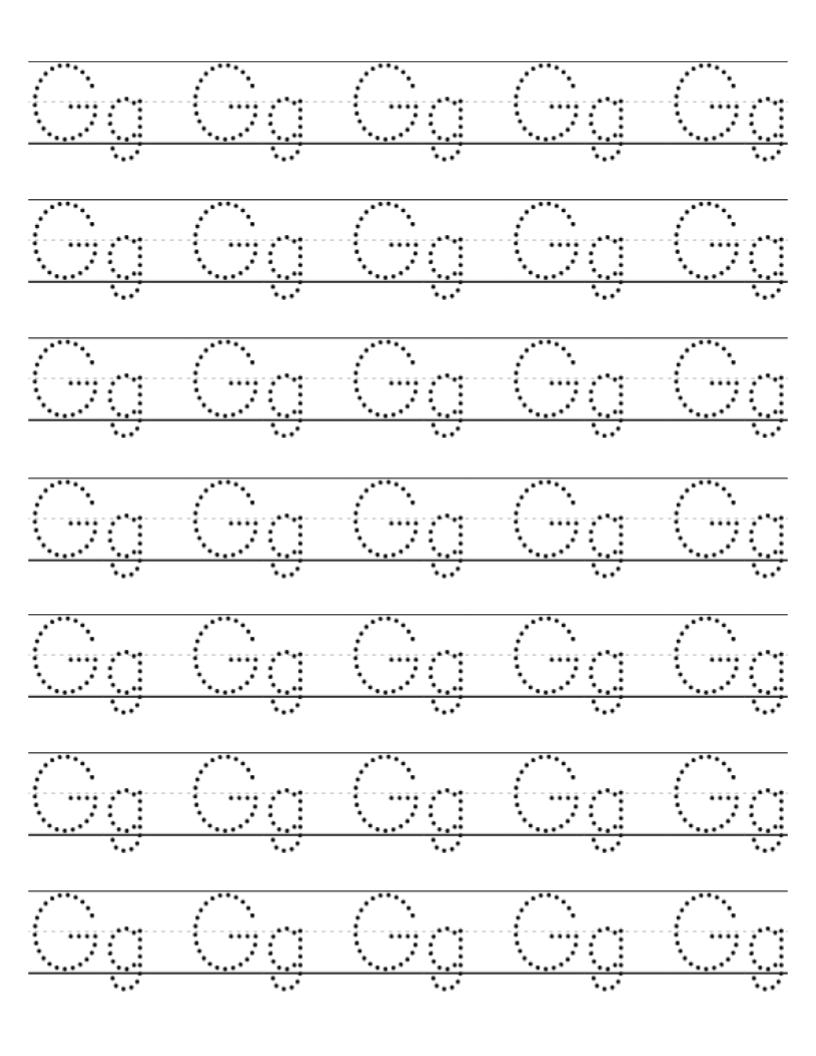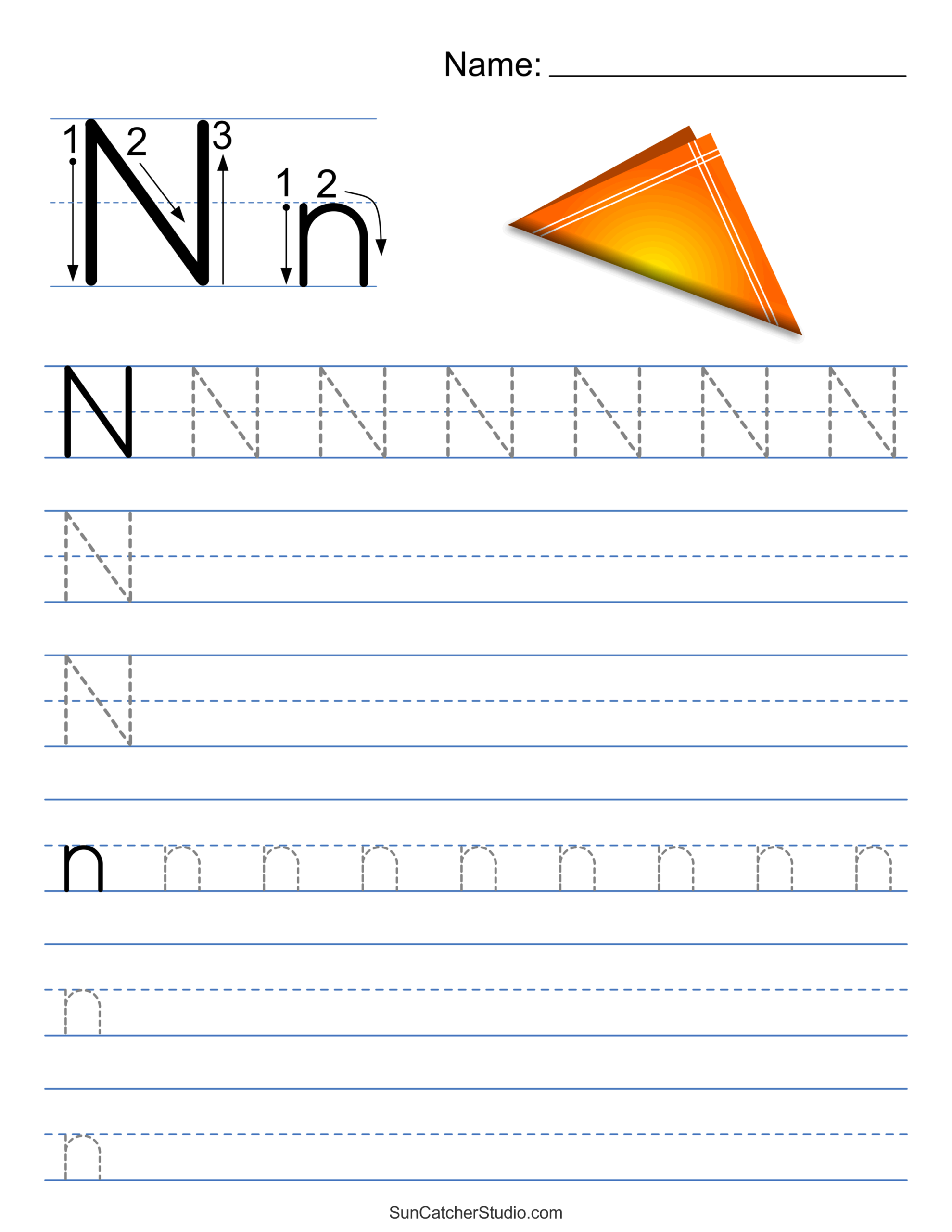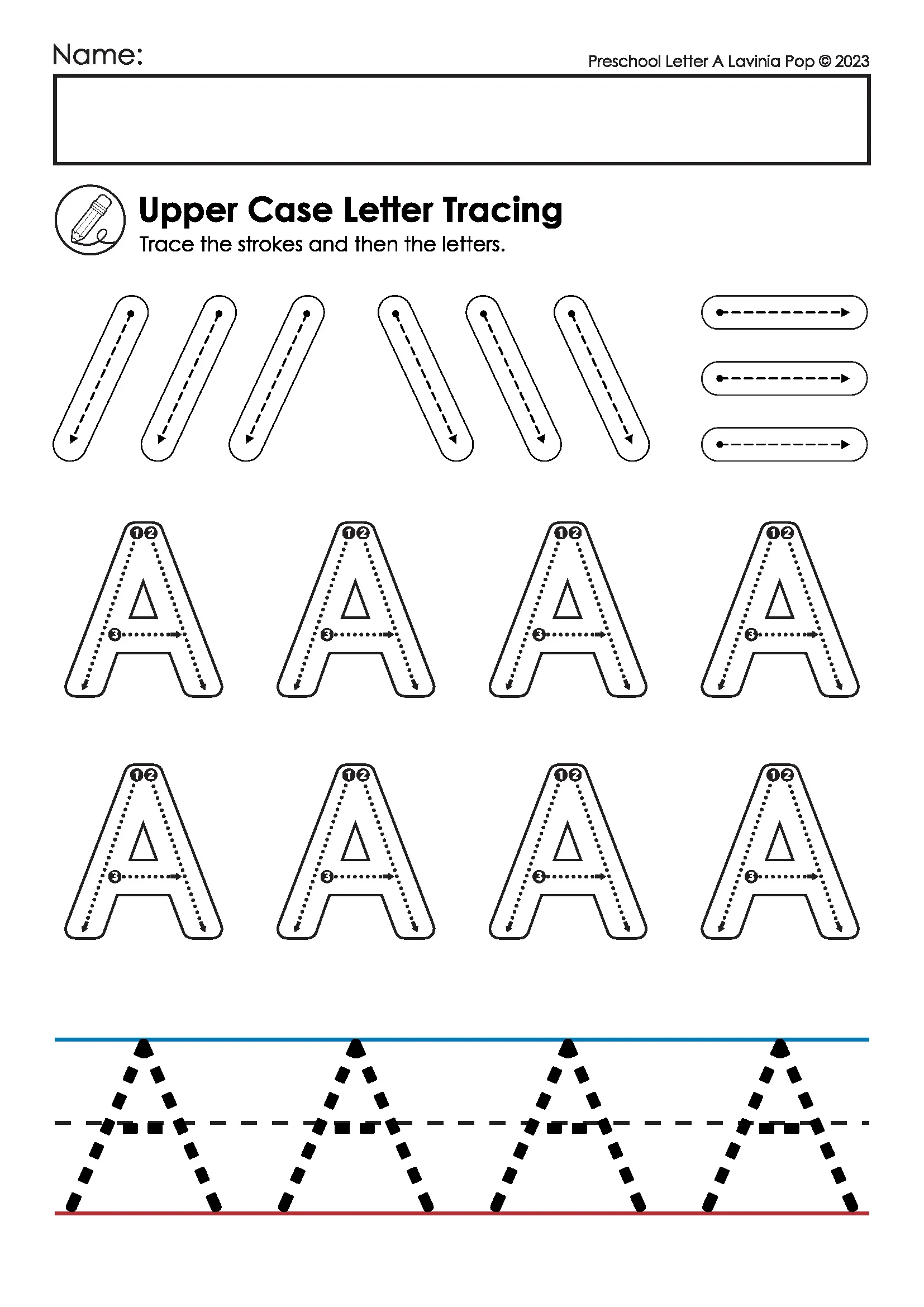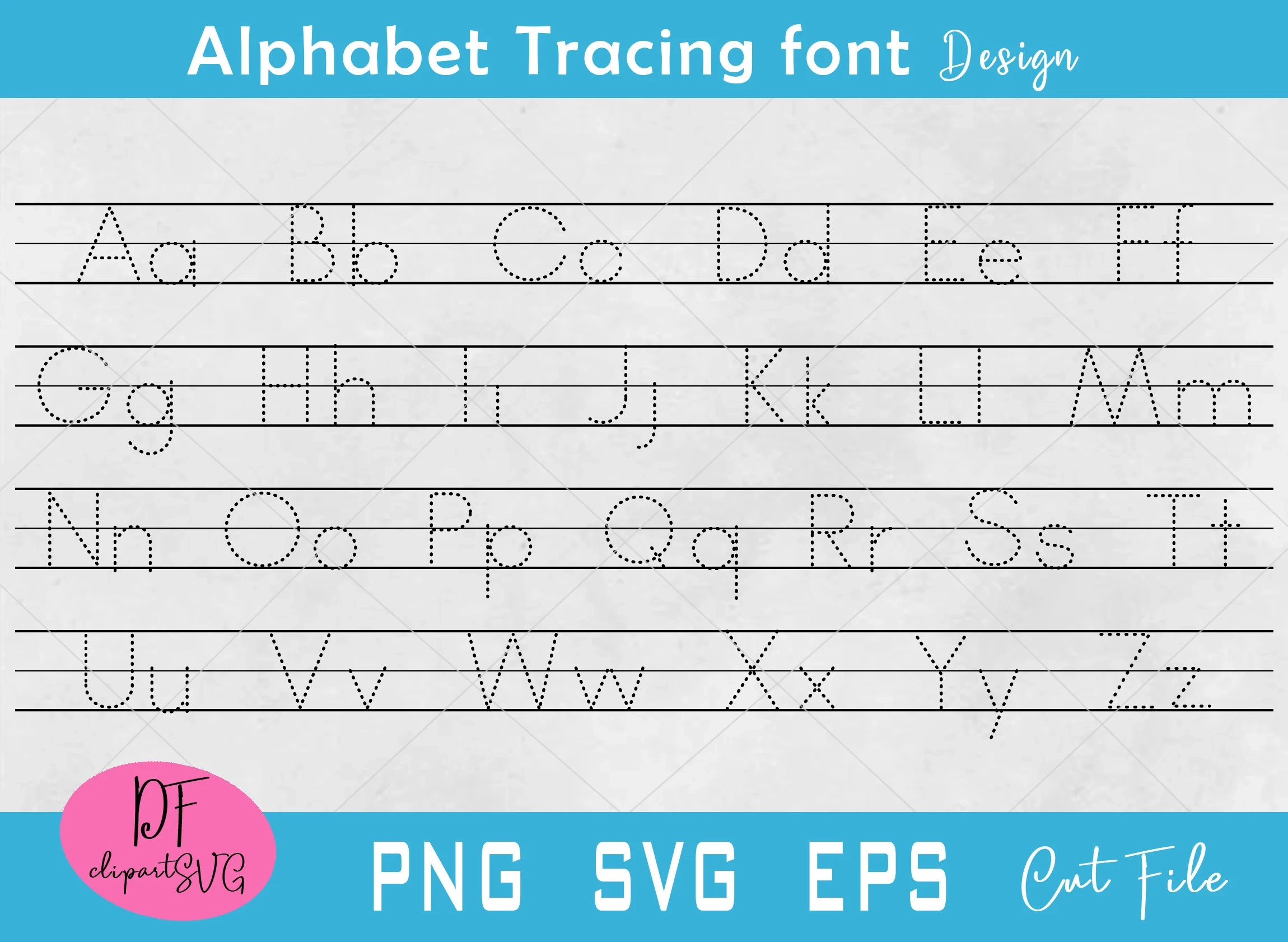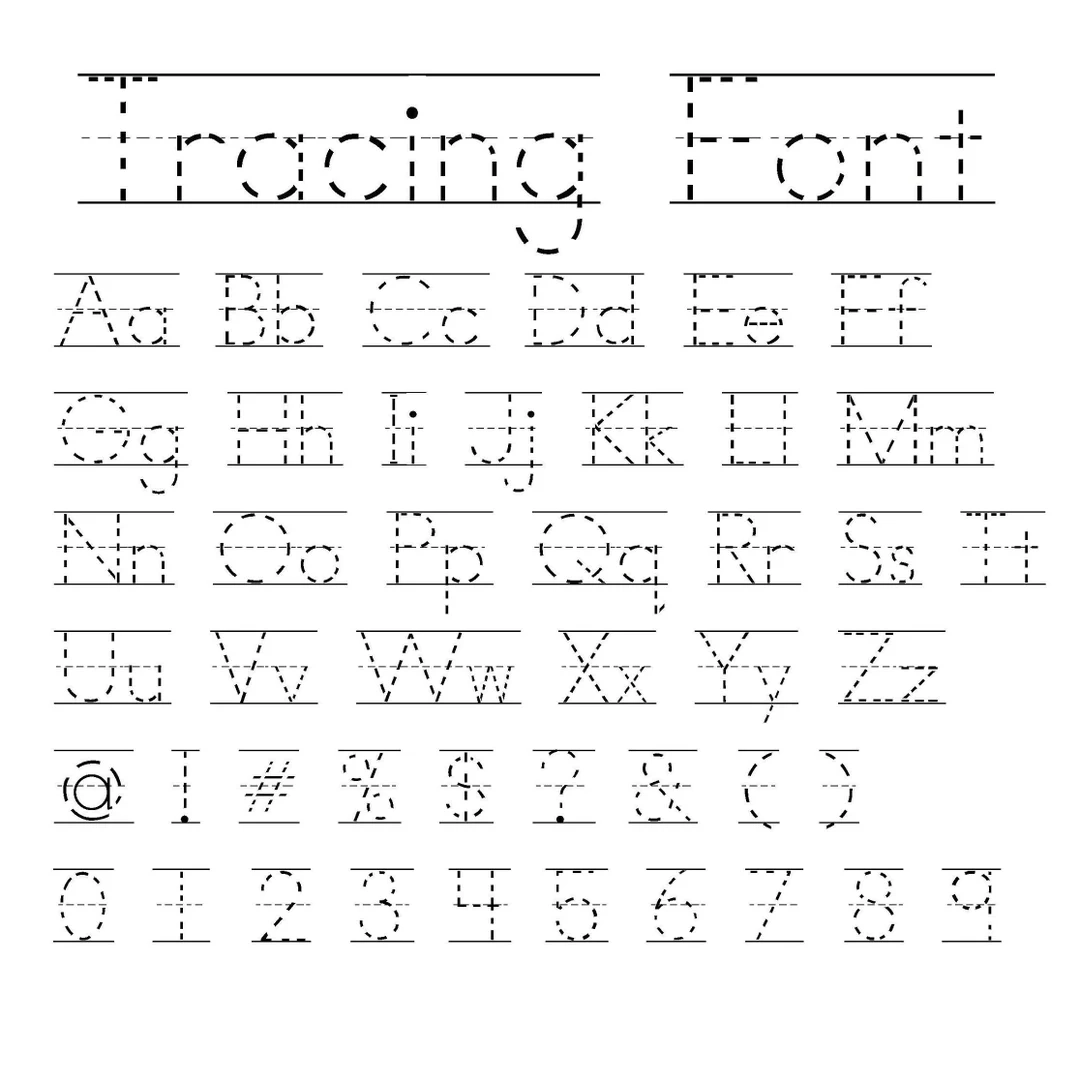
Learning to write is an exciting journey for young children. Tracing fonts designed for kindergarten can make this process enjoyable and effective. These fonts help kids develop their handwriting skills while having fun.
Tracing fonts for kindergarten with lines provide clear guidance for little hands. The lines help children understand where to start and stop, ensuring they form letters correctly. This structure is essential for developing good writing habits.
These fonts often come in playful designs, making practice sessions more engaging. Kids are more likely to enjoy writing when they see fun characters or colorful themes. This excitement can lead to more frequent practice.
Parents and teachers can easily find printable worksheets featuring these tracing fonts. These resources are perfect for home or classroom use, allowing children to practice whenever they want. Consistent practice is key to mastering handwriting.
Incorporating tracing fonts into daily routines can significantly enhance a child’s writing skills. With patience and encouragement, children will develop confidence in their abilities and enjoy the process of learning to write.